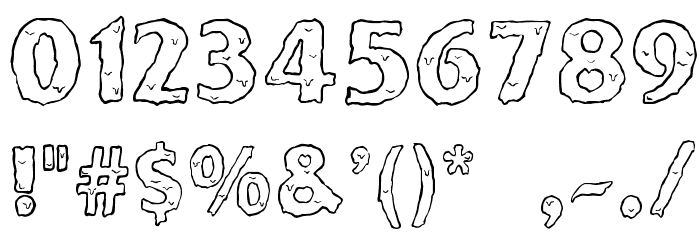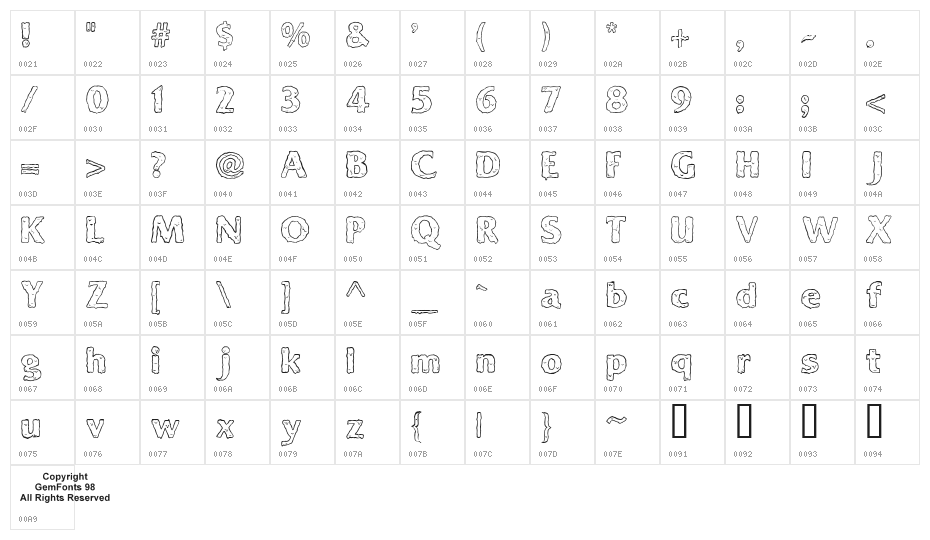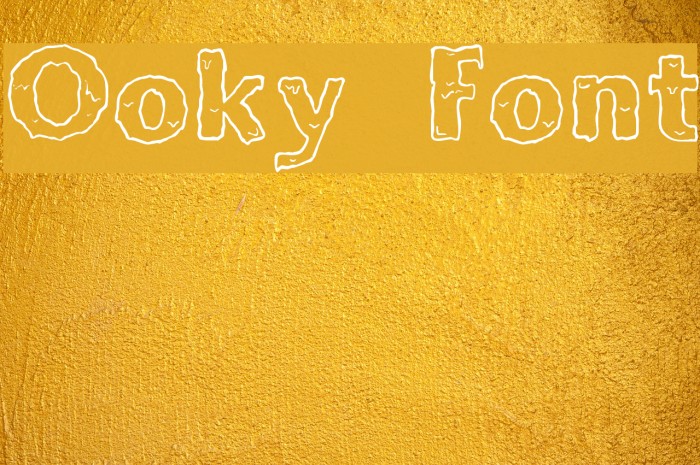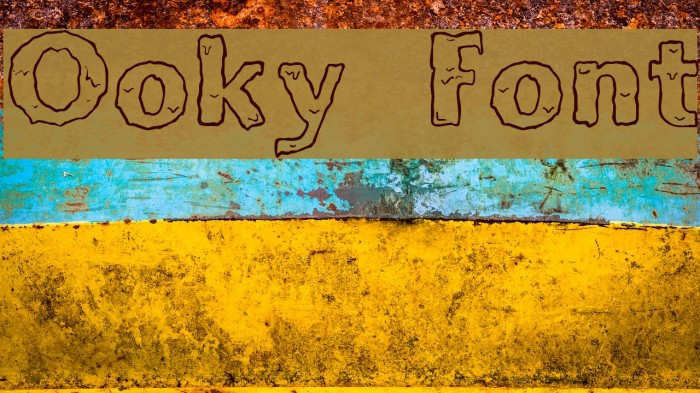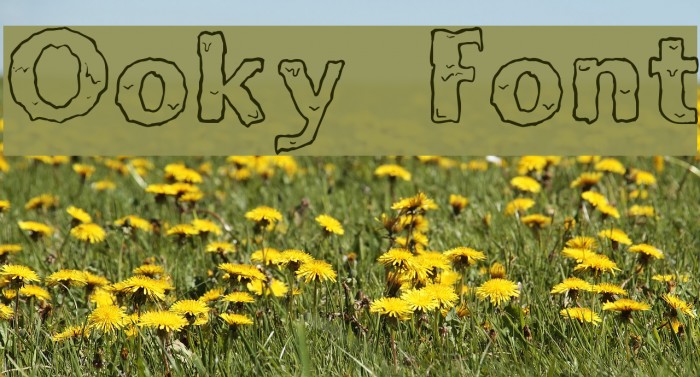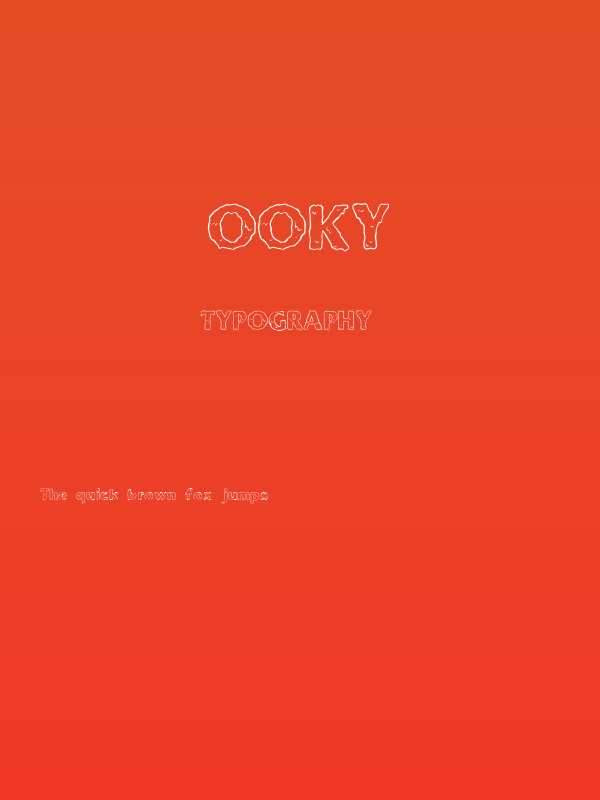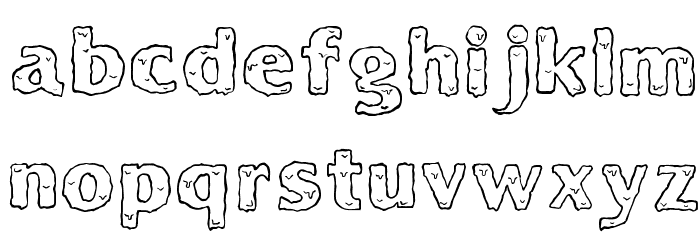
Ooky Font
Ooky Description
This font features a playful and quirky design, characterized by its uneven, wavy outlines that give it a hand-drawn appearance. The letters have a rough, textured look, reminiscent of doodles or sketches, which adds a whimsical and informal touch. The uppercase and lowercase letters maintain consistent styling, with a slightly exaggerated, cartoonish form. Numbers and special characters follow the same design principles, ensuring a cohesive look across all glyphs. This font's unique style makes it stand out, perfect for creative and fun projects.
Overall StyleWhimsical
Proposed ProjectsIdeal for children's books, comic strips, playful branding, and creative posters.